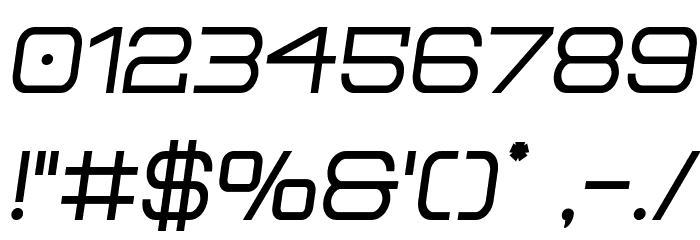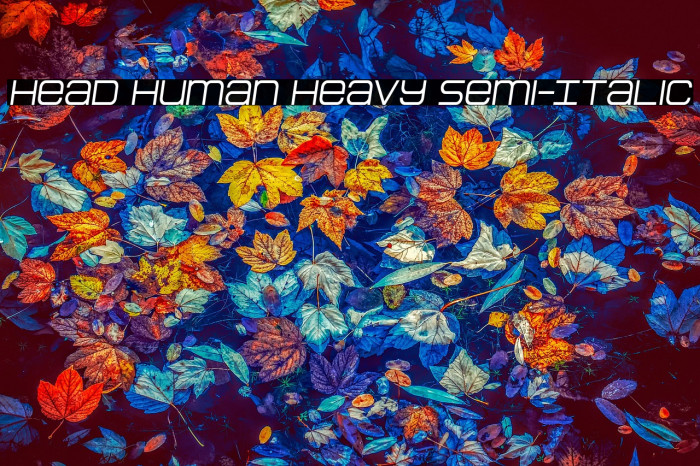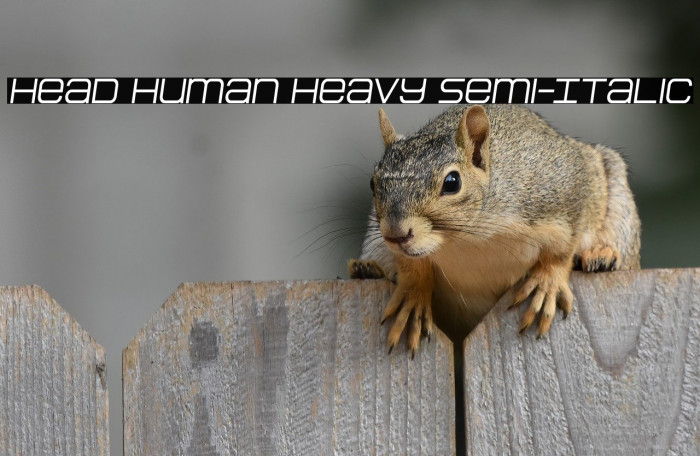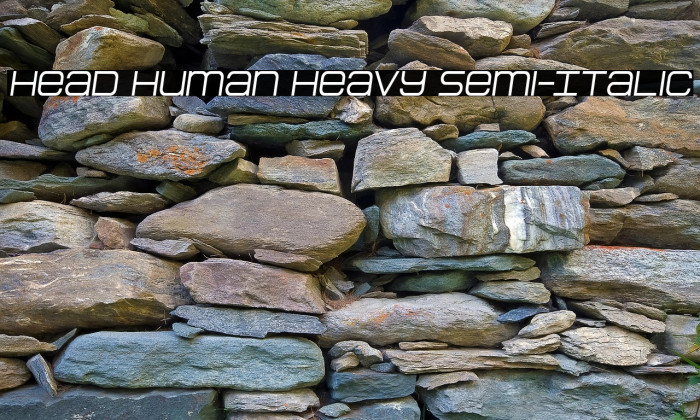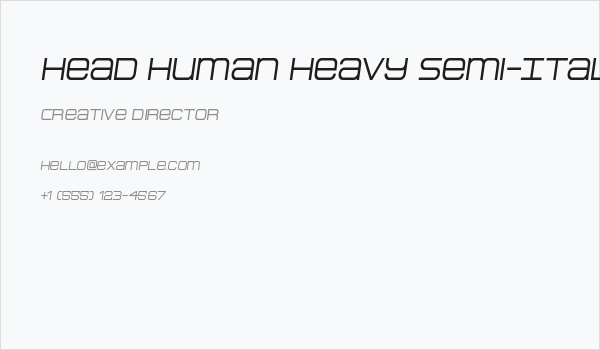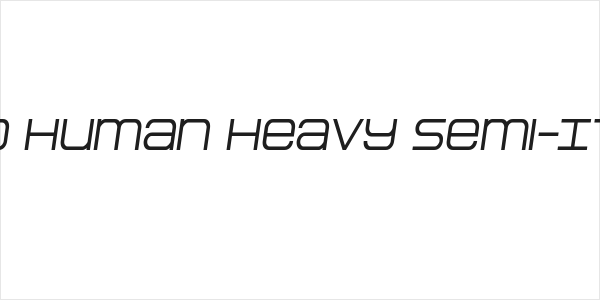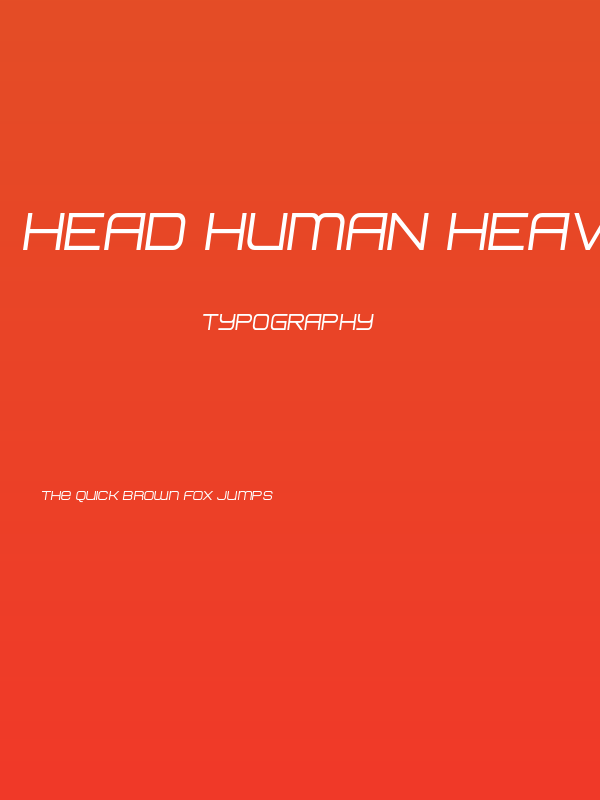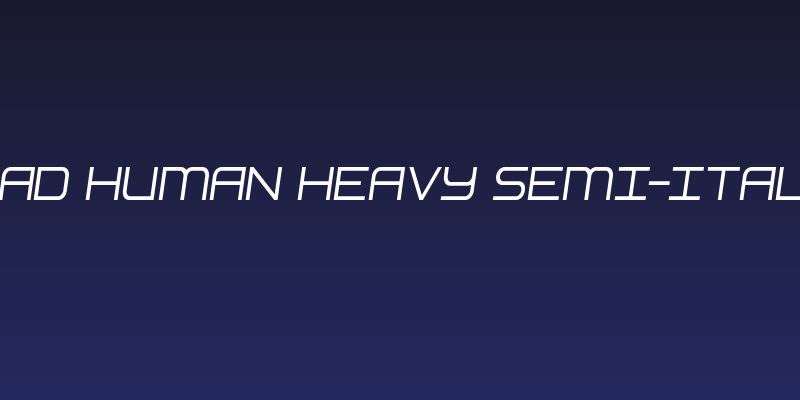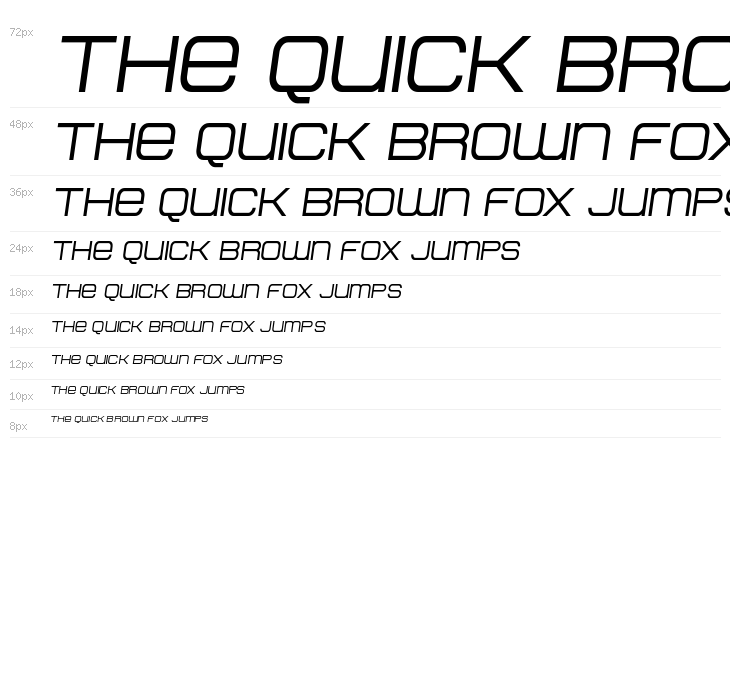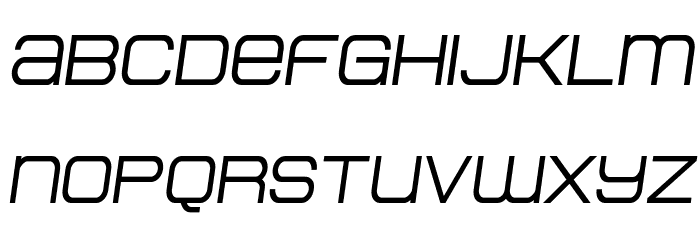
Head Human Heavy Semi-Italic Font
Head Human Heavy Semi-Italic Description
This font features a modern and sleek design with a semi-italic style, giving it a dynamic and forward-leaning appearance. The characters are constructed with a geometric precision, showcasing clean lines and a uniform stroke width. The uppercase and lowercase letters maintain a consistent height, contributing to a harmonious and balanced look. The numerals are distinct and easy to read, while the special characters are well-integrated into the overall design. This font's contemporary aesthetic makes it suitable for a variety of digital and print applications.
| Use Case | Headlines, Logos, Digital Interfaces |
| Proposed Projects | Ideal for technology branding, modern advertising, digital interfaces, and innovative product packaging. |